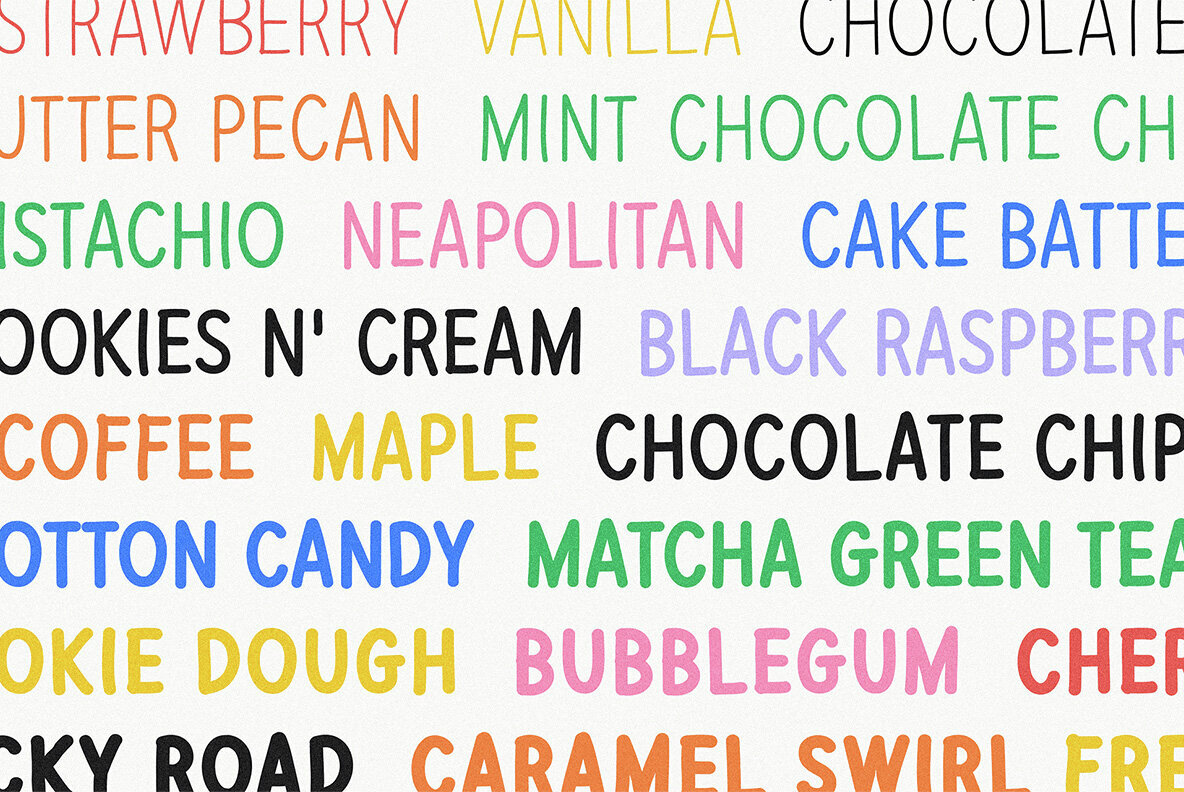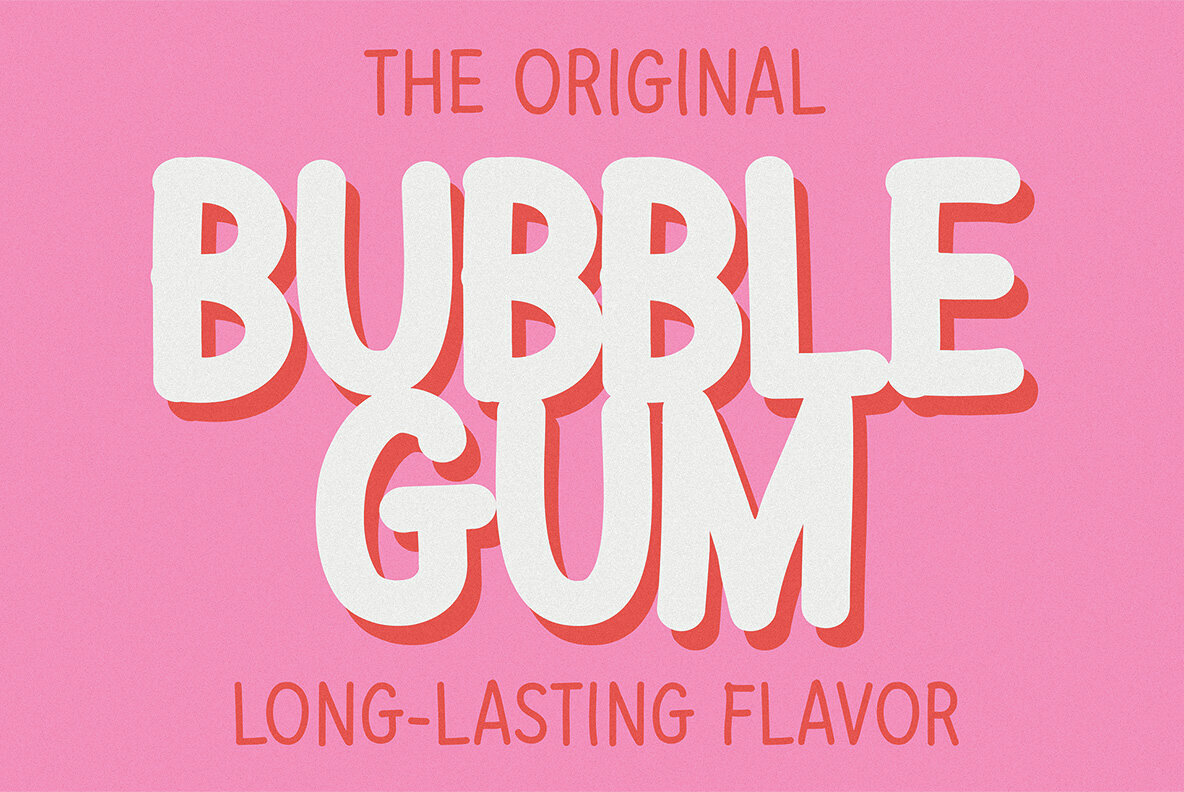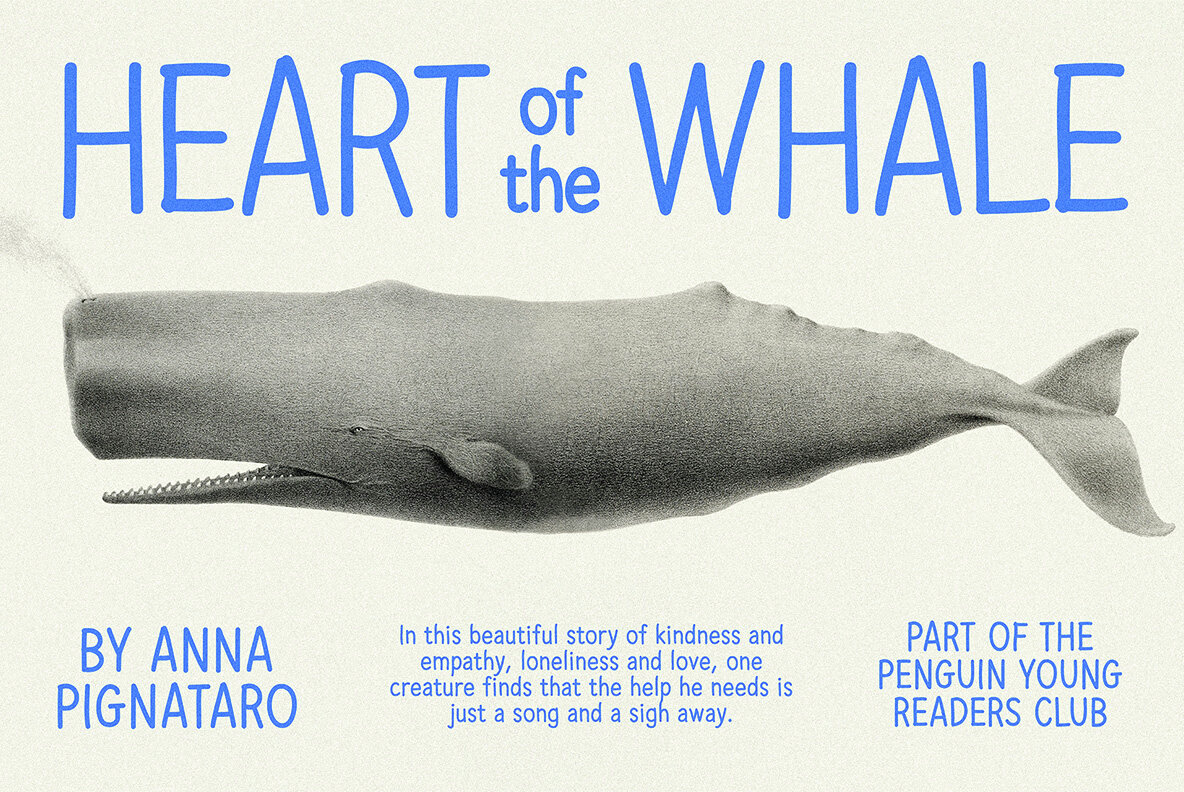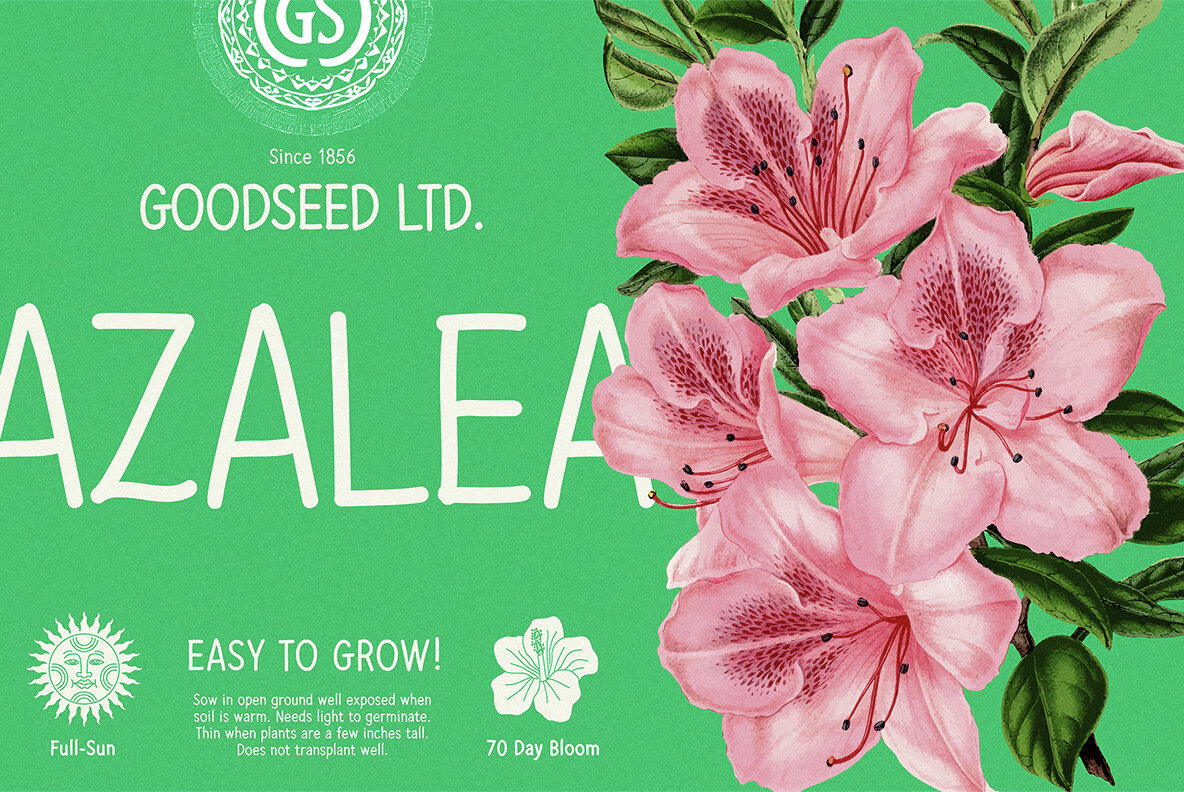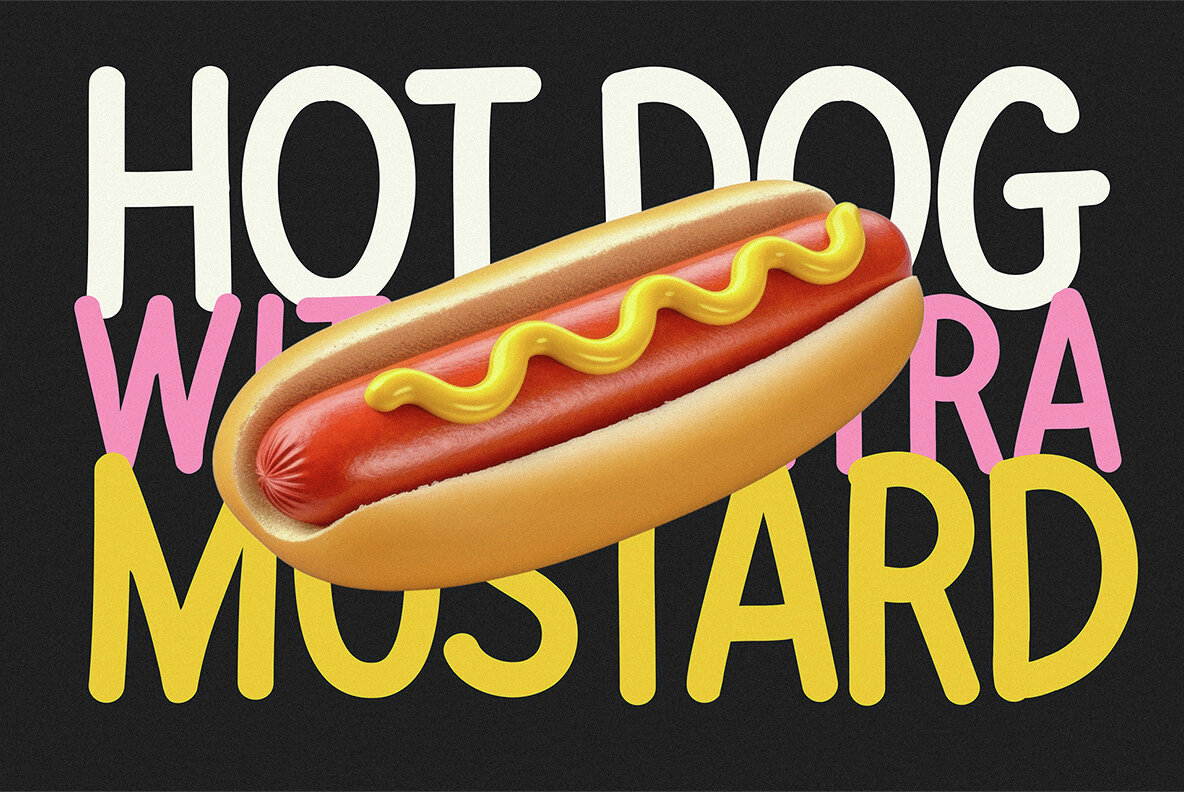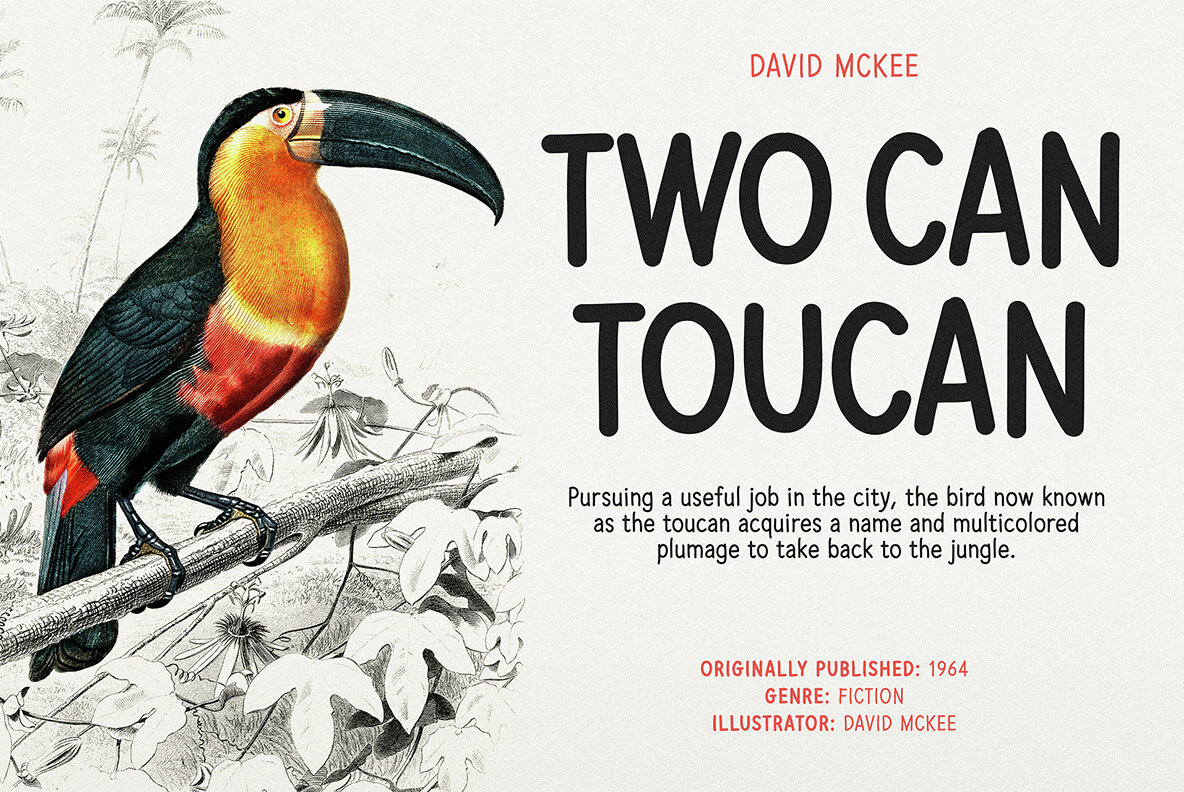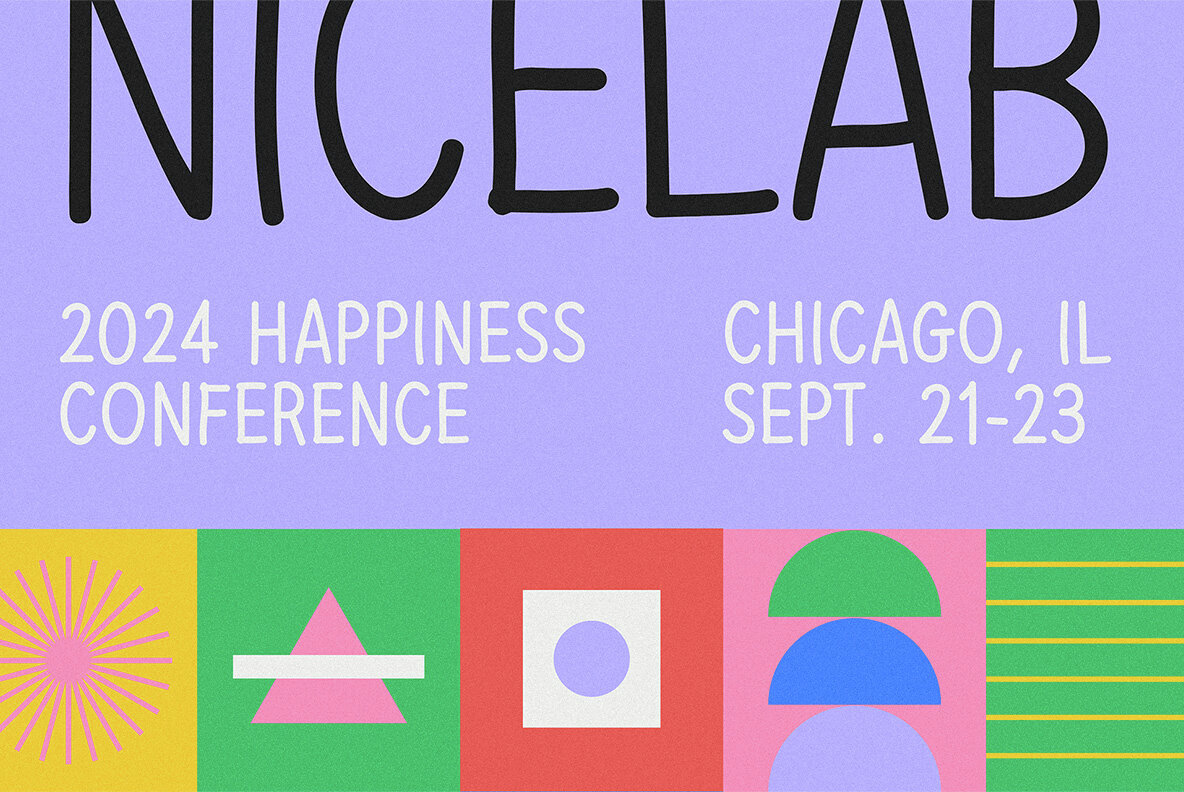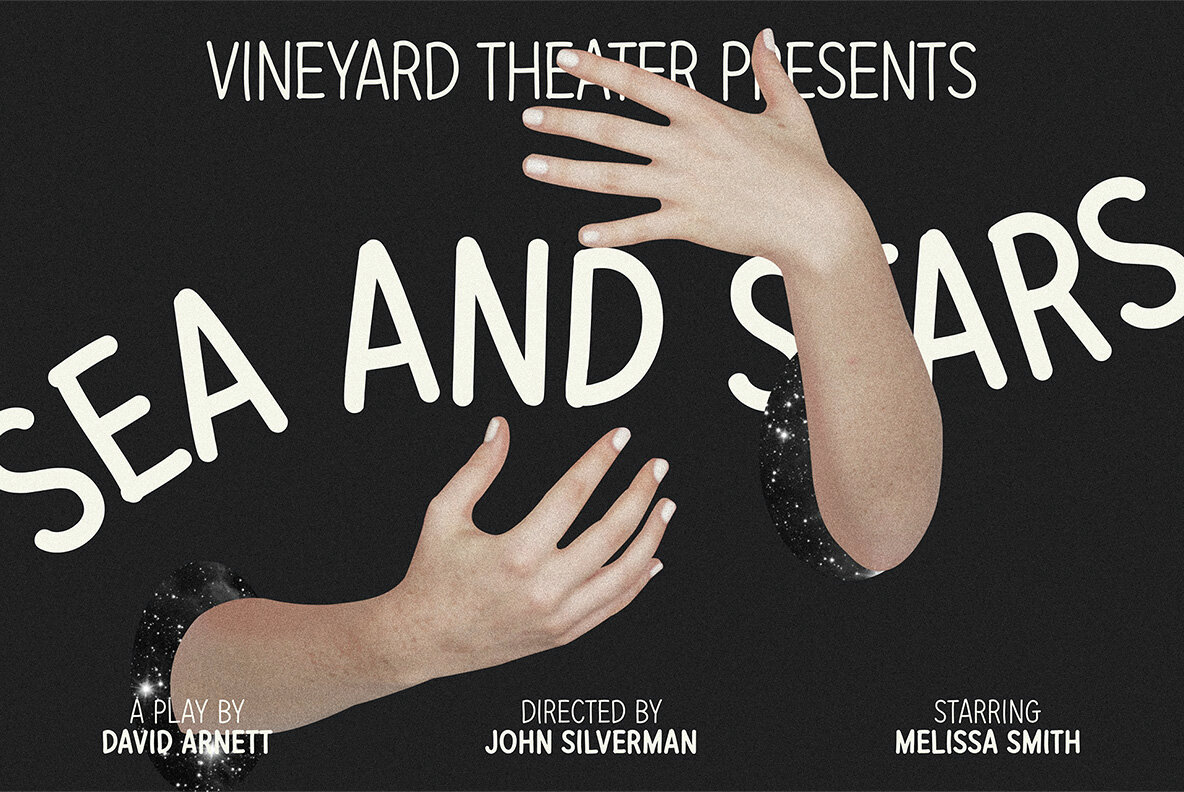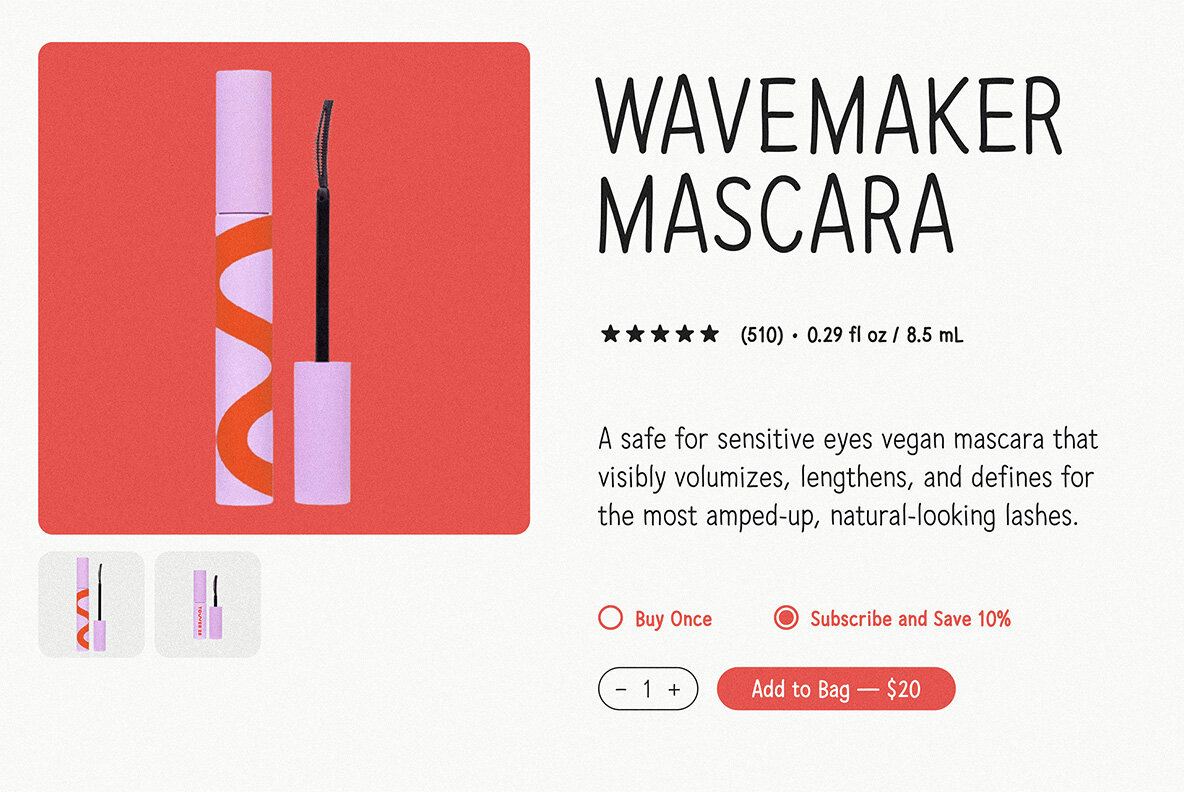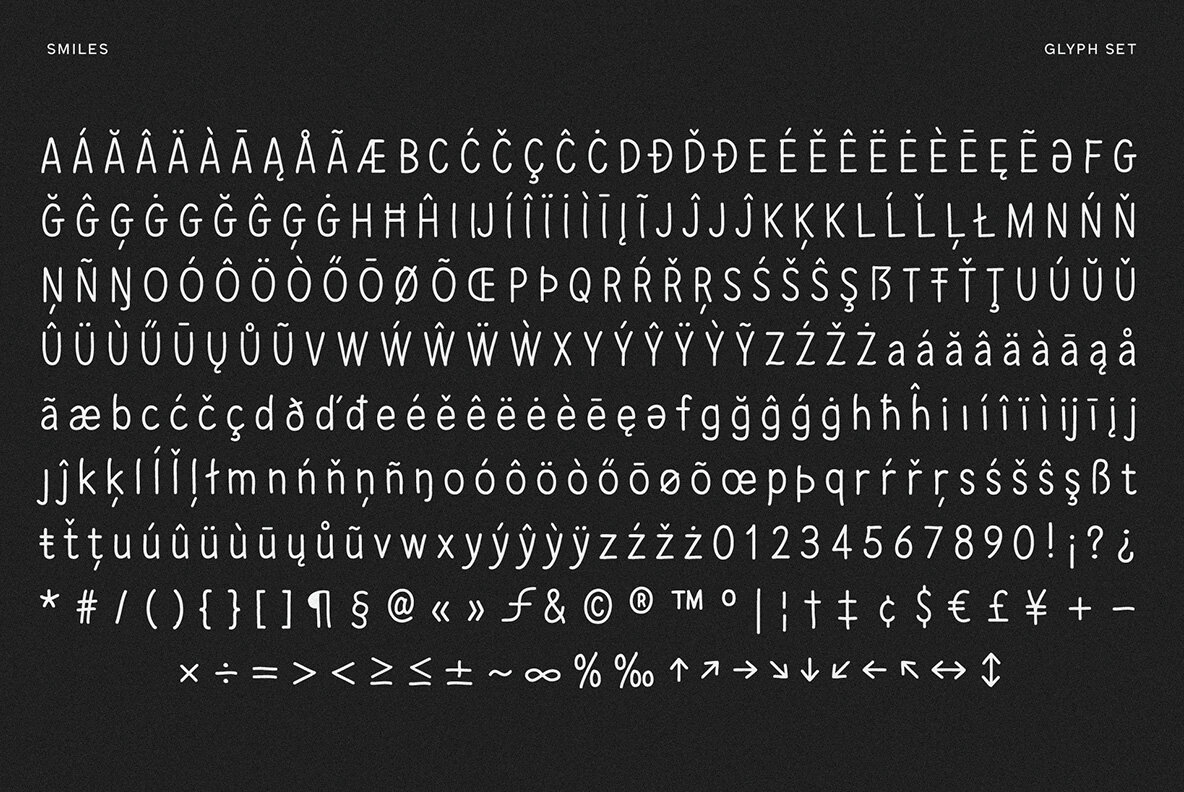
Smiles Font
Smiles is a delightful hand-drawn typeface designed to brighten up everything it touches. Its friendly style creates a welcoming theme, perfect for branding, social media, and other creative projects. This typeface, with its playful vibe, was drawn by hand, giving it a personal touch that adds charm to any design. Available in variable weights, Smiles is versatile and looks great at any size. Smiles is the perfect typeface for those looking to add warmth and friendliness to their design projects. Its hand-drawn style and variable weights make it ideal for branding, social media, and other creative works. The font's cheerful character brings a sense of joy and positivity, helping you create a welcoming and engaging atmosphere. Explore other charming and cheerful fonts like Smiles at YouWorkForThem. Visit our Hand-Drawn Fonts and Casual Fonts sections to find the perfect typeface for your design needs. Add a burst of joy to your design projects with Smiles, the hand-drawn typeface that makes everything look brighter. Available with flexible licensing for personal, commercial, and enterprise use.Smiles: A Cheerful Hand-Drawn Typeface
Key Features of Smiles
Why Choose Smiles?
Perfect for Various Design Projects